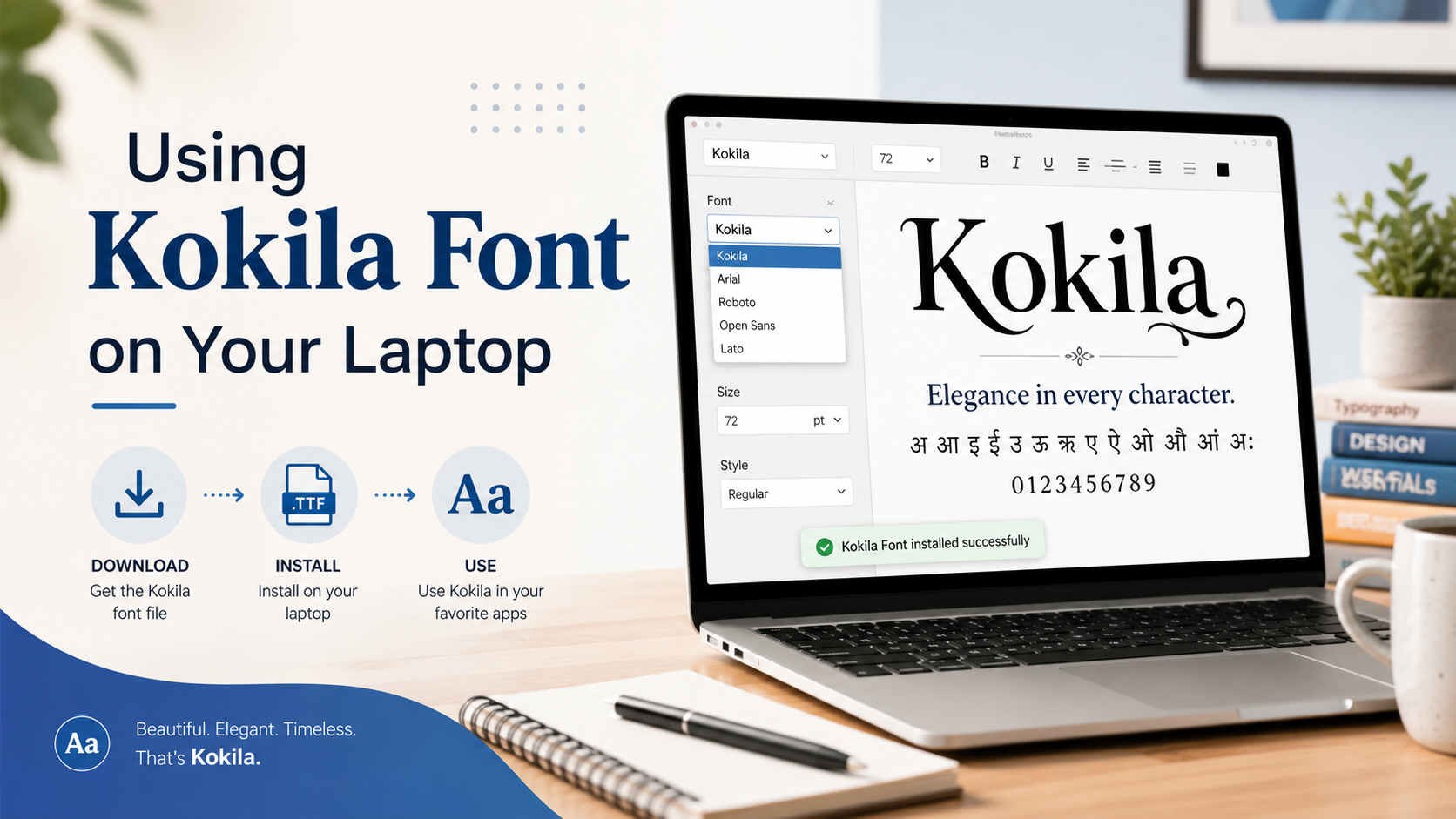
Kokila is a clean and traditional Devanagari typeface commonly used for writing Hindi, Marathi, Sanskrit, and other languages that use the Devanagari script. Its balanced letterforms and excellent readability make it suitable for educational documents, official letters, books, poetry, presentations, invitations, and digital content.
The font provides a professional appearance without making the text look overly decorative. This makes Kokila particularly useful for students, teachers, writers, designers, publishers, and office workers who regularly create content in Hindi or other supported languages.
What Is the Kokila Font?
Kokila is a Devanagari typeface designed to display Indian-language text clearly on digital screens and printed pages. It includes carefully shaped characters, vowel signs, conjuncts, punctuation marks, and numerical symbols required for properly written Devanagari text.
Unlike highly decorative Hindi fonts, Kokila has a more formal and readable structure. It can therefore be used for both personal and professional projects. Its traditional appearance works particularly well in documents where clarity and authenticity are important.
Why Should You Use Kokila Font?
The biggest advantage of Kokila is its readability. Devanagari text can become difficult to understand when a font has poor spacing, inaccurate character combinations, or overly stylized letterforms. Kokila maintains a clean structure that helps readers recognize words comfortably.
It is suitable for many different purposes, including:
• Hindi essays and assignments
• School and university projects
• Government-style documents
• Religious and Sanskrit content
• Books, magazines, and newspapers
• Wedding cards and invitations
• Posters and banners
• YouTube thumbnails
• Social media graphics
• Business presentations
• Hindi website content
Kokila also offers a traditional visual style that gives Devanagari writing a familiar and respectable appearance. It is not excessively bold or ornamental, so it can be used for long paragraphs as well as headings.
Kokila is a practical and visually balanced Devanagari font for Hindi documents, educational content, publications, presentations, invitations, and graphic designs. Its clear character shapes make it particularly useful for projects that require a traditional yet professional appearance.